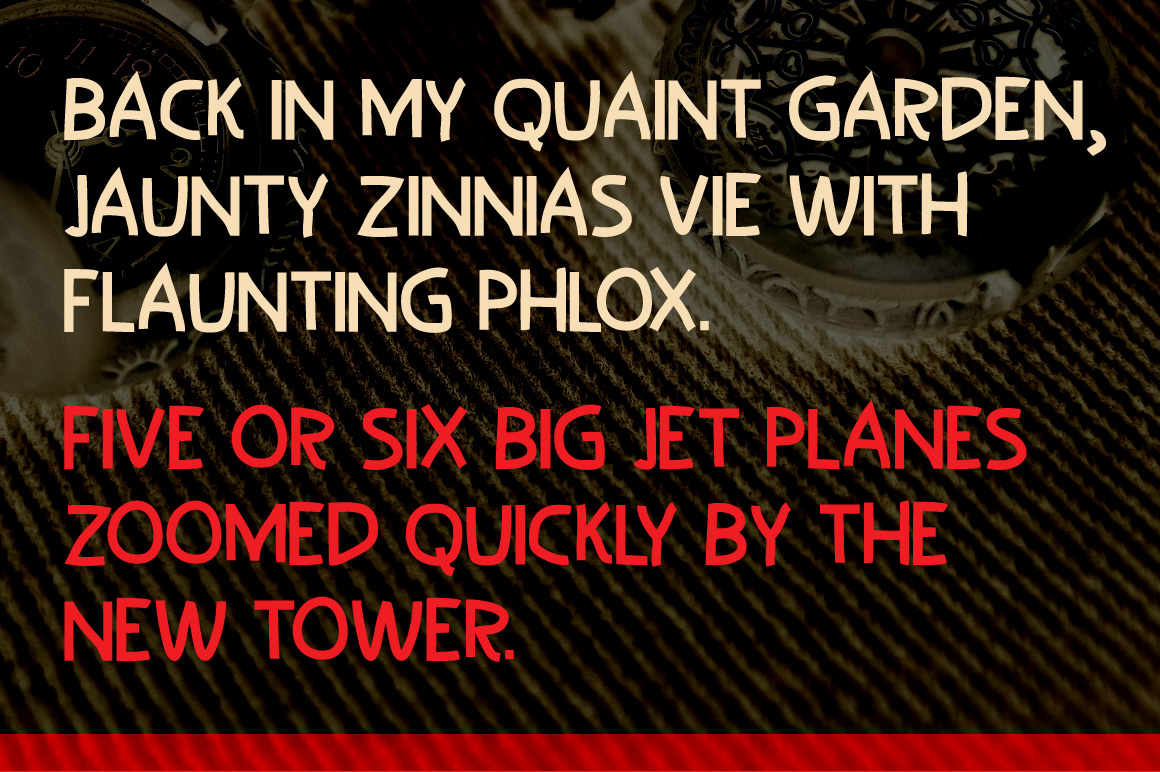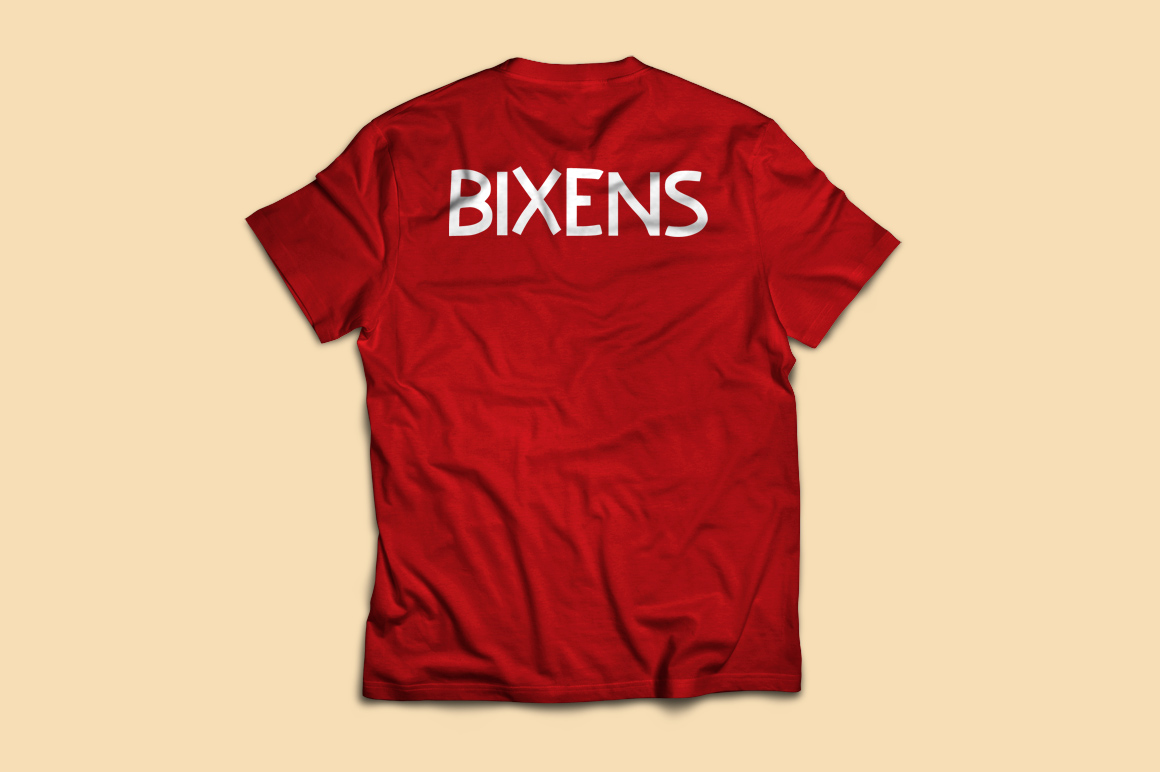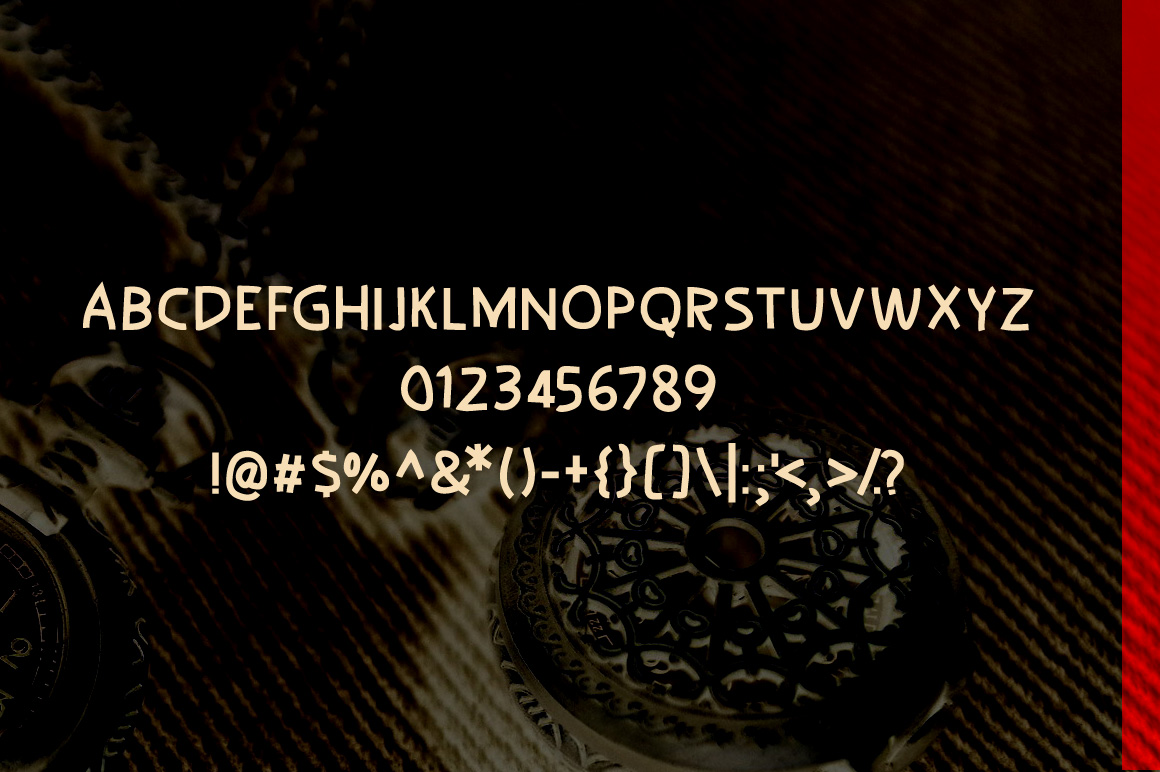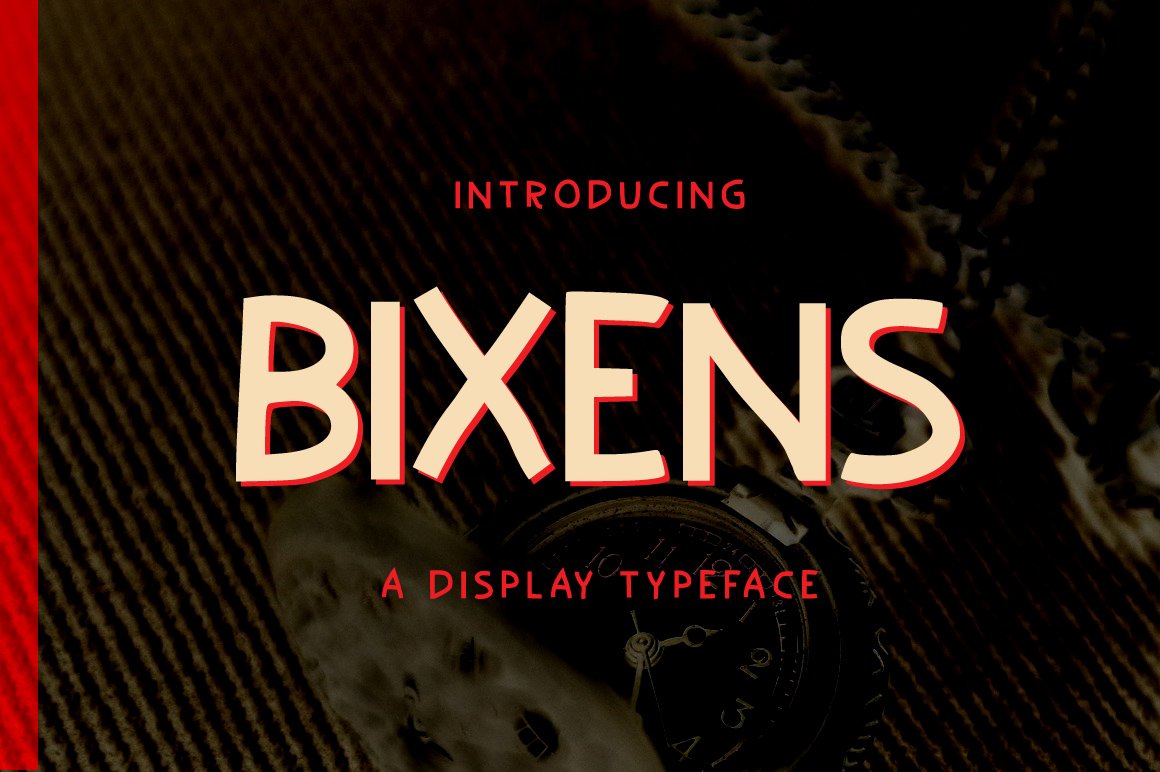
The Perfect Typographic Companion for Your Creative Projects
We’ve all been there – staring at a blank canvas, trying to bring our ideas to life. Sometimes, all it takes is the right font to spark creativity. That’s exactly what happened when designers discovered Bixens Font, a fun display font designed by Contour Fonts. With its playful, energetic vibe, Bixens Font is perfect for adding a touch of whimsy to your next project.
Whether you’re working on a graphic novel, a children’s book, or a social media campaign, Bixens Font is an invaluable asset for designers. Its versatility and unique character make it a valuable addition to any design toolkit. By incorporating Bixens Font into your projects, you’ll be able to add an extra layer of personality and style that will set your work apart from the rest.
Bixen’s Font Key Features
- Font Family: Bixen’s Font is a unique, hand-drawn sans-serif font designed for modern and creative applications.
- Character Set: Includes a comprehensive set of characters, including Latin, Cyrillic, and Greek alphabets, as well as various punctuation and symbol sets.
- Unique Characteristics: Features a distinctive, hand-drawn style with subtle irregularities and nuances, giving it a humanistic and artistic feel.
Bixens Font Review
Overall, I was excited to dive into Bixens Font and see what it had to offer. Here are my honest thoughts.
- ✨ Unique style: Bixens Font has a distinct, quirky feel that sets it apart from more traditional fonts. It’s great for designers looking to add some personality to their projects.
- ✨ Good legibility: Despite its bold, playful design, Bixens Font is surprisingly easy to read, even at smaller font sizes.
- ✨ Versatility: The font comes in a range of weights and styles, making it suitable for a variety of applications, from body text to headlines.
- ⚠️ Limited language support: Unfortunately, Bixens Font only includes support for Latin-based languages, which may limit its use in projects requiring other languages.
- ⚠️ Not ideal for small text: While Bixens Font is legible at larger sizes, it can become difficult to read at very small sizes, which may be a concern for designers working on small-screen projects.
Overall, I think Bixens Font is a great addition to any designer’s toolkit, particularly for projects where a unique, playful feel is desired. However, its limitations should be carefully considered before choosing it for certain projects.
Bixens Font is ideal for:
- Creatives and designers looking for a unique and stylish font.
- Branding and marketing materials that require a modern and sleek look.
- Typography-heavy projects that require a bold and eye-catching font.